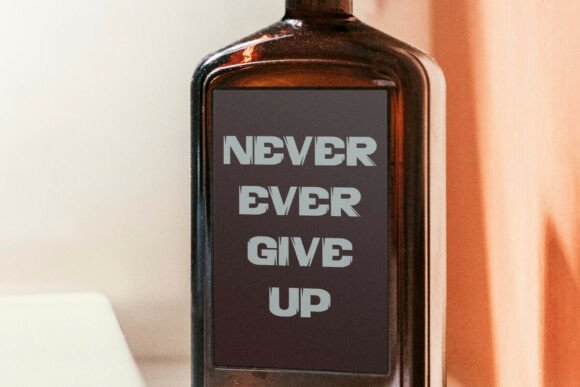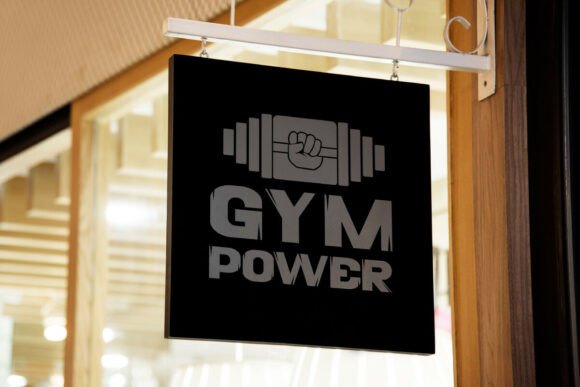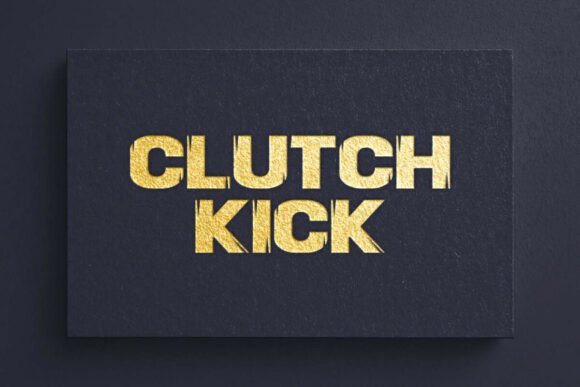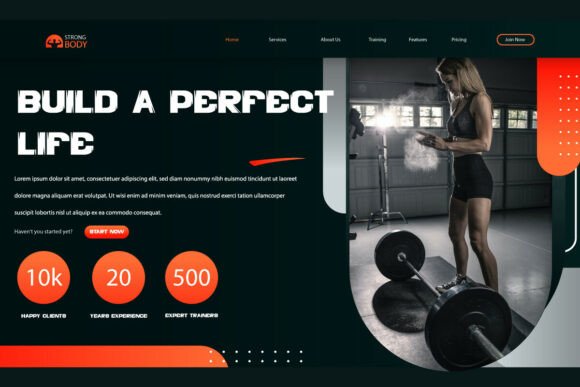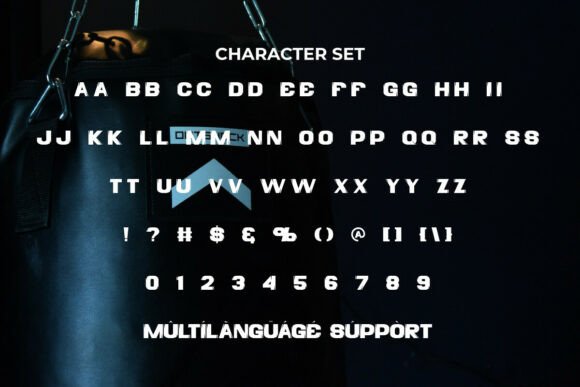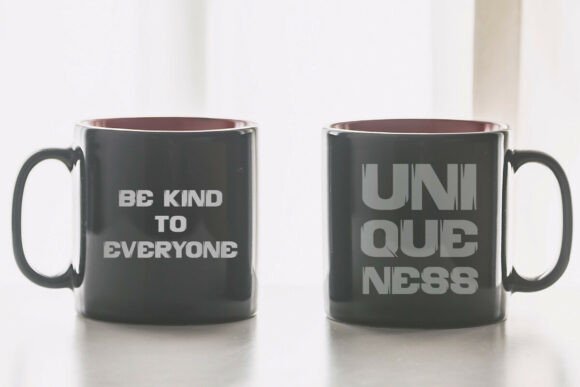
Introduction to Clutchkick Font
Imagine you’re working on a design project, and you’re struggling to find the perfect font that captures the essence of your concept. The words ‘high-energy’, ‘bold’, and ‘dynamic’ come to mind, but nothing seems to fit the bill. Then, like a shot of adrenaline, you discover Clutchkick Font – a sporty display typeface that embodies the spirit of vintage motorbike culture.
With its striking contrast, sharp sans serif edges, and distinctive stroke detailing, Clutchkick Font is the ultimate design resource for creatives who demand attention and power. Its modern-retro vibe instantly enhances any visual identity, making it a valuable addition to any design project.
Whether you’re designing logos, branding materials, posters, or signage, Clutchkick Font is the perfect choice for designers who want to add a touch of courage and high-energy personality to their work. And the best part? It’s available for free download, making it a top-notch design resource for creatives of all levels.
Key Features of Clutchkick Font
- High-quality font with a transparent background, ideal for creative projects that require a clean and minimalist design.
- Features a unique, modern design that is perfect for use in logos, branding, and other creative projects where a distinctive font is needed.
- Includes a range of glyphs and characters, making it a versatile font for use in a variety of design contexts.
Honest Review: Clutchkick Font
I recently had the chance to work with the Clutchkick Font, and I have to say, it’s a solid addition to any designer’s toolkit. The first thing that stood out to me was its high quality, which made it a joy to use in my creative project.
- ✨ High-quality design: The Clutchkick Font is beautifully crafted, with clean lines and a professional feel.
- ✨ Transparent background: The font’s transparent background allows for seamless integration with other design elements.
While the Clutchkick Font is a great resource, there are a few limitations to consider:
- ⚠️ Limited font weights: At the time of my review, the font only comes in a few weights, which may not be ideal for projects requiring a wide range of font styles.
- ⚠️ No Cyrillic support: If you need to work with Cyrillic languages, you may find the font lacking in this regard.
Overall, I was impressed with the Clutchkick Font and would recommend it as a design resource for any creative project. While it may not be perfect, its high quality and free download make it a great addition to any designer’s toolkit.
The Clutchkick Font is perfect for:
- Creating eye-catching logos and branding materials.
- Designing social media graphics and advertisements.
- Adding a unique touch to presentations and reports.